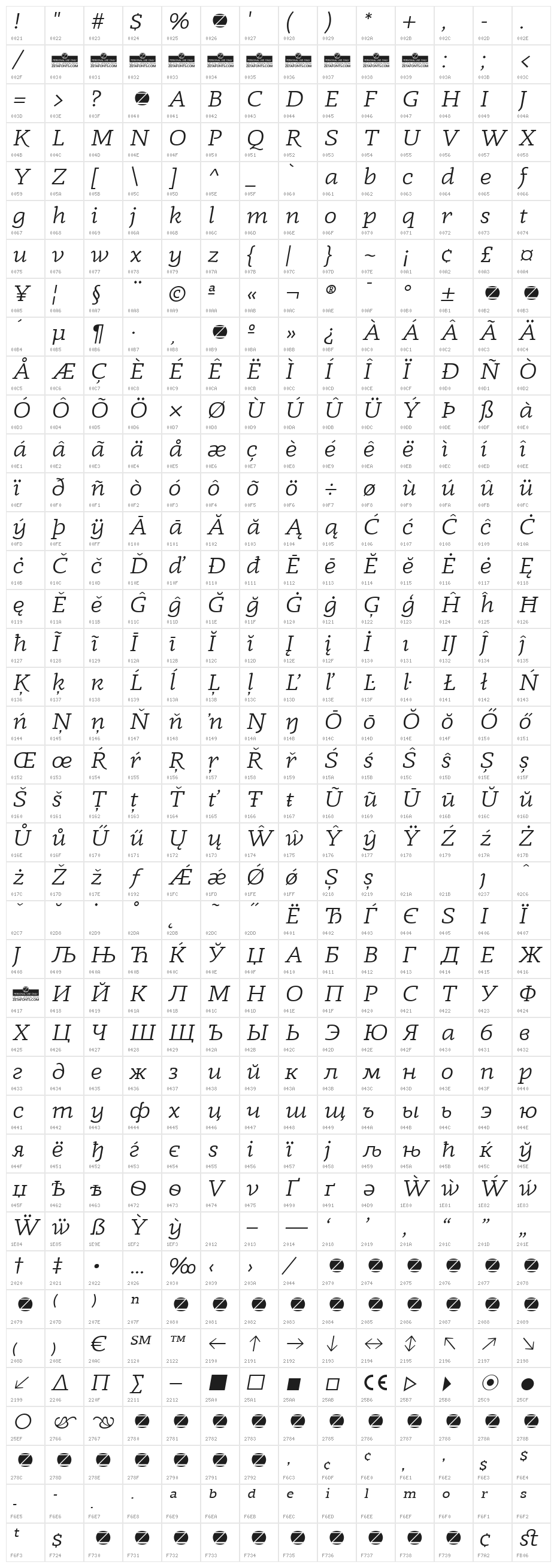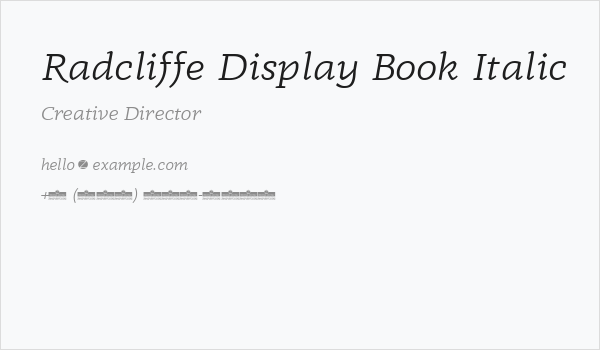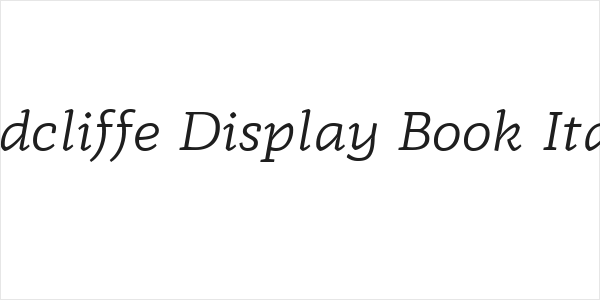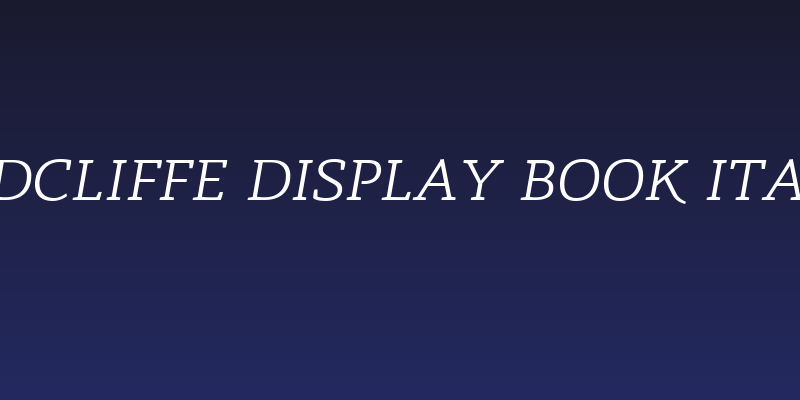
Radcliffe Display Book Italic Font
Radcliffe Display Book Italic Description
This elegant serif font features a classic italic style, characterized by its graceful curves and refined serifs. The uppercase letters are tall and stately, while the lowercase letters exhibit a smooth, flowing design. The numerals are consistent with the overall style, maintaining a balance between readability and aesthetic appeal. Special characters are thoughtfully designed to complement the alphabet, ensuring a cohesive look across all text. This font exudes sophistication and is ideal for projects that require a touch of elegance.
| Use Case | Headlines, Logos, Editorial design |
| Proposed Projects | Ideal for wedding invitations, luxury branding, editorial design, and elegant signage. |